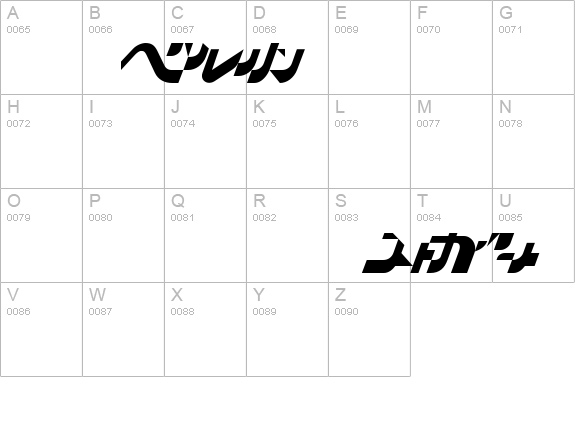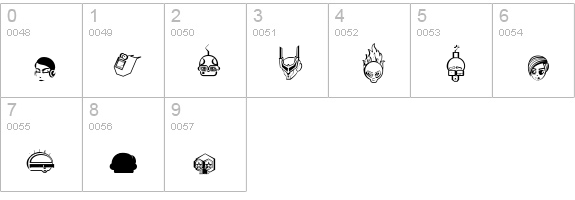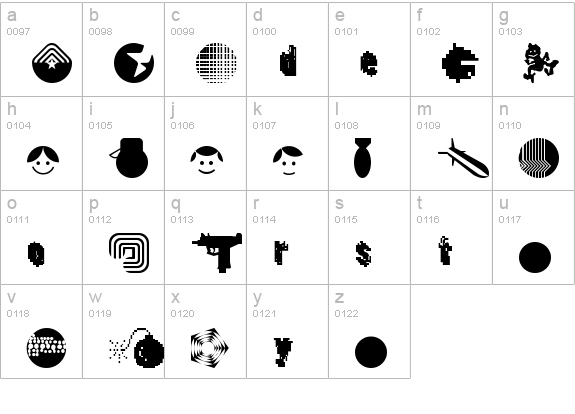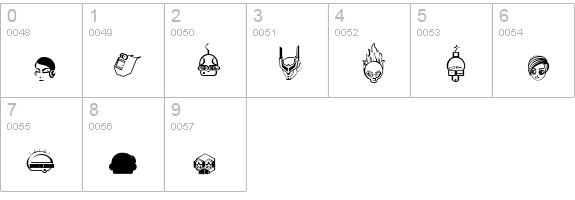
DestroyDingbats Font Details
Introducing DestroyDingbats font, a unique and versatile typeface that is sure to make a bold statement in any design project. This font features a collection of intricately designed dingbats with a destroyed, edgy aesthetic that adds a touch of rebelliousness to your text. DestroyDingbats font is perfect for adding a touch of personality to your graphic design projects, social media posts, branding materials, and more. Whether you're looking to create eye-catching logos, attention-grabbing headlines, or unique patterns, this font has got you covered. Best of all, DestroyDingbats font is completely free to download at FontsMarket.com. Simply head over to the website, grab your copy, and start incorporating this striking font into your creative endeavors today. Let DestroyDingbats font unleash your creativity and set your designs apart from the rest.